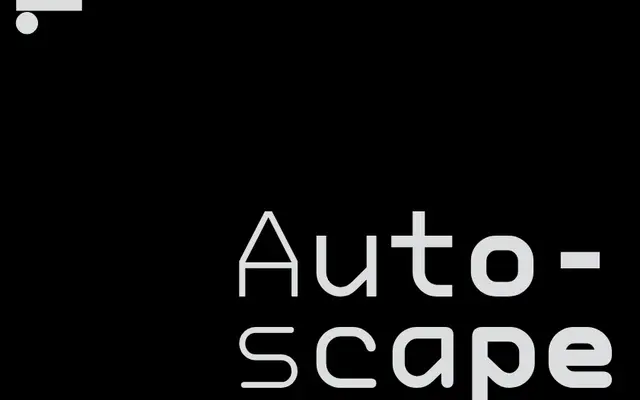
LL Autoscape
Lineto · Minjong Kim, Cornel Windlin · 1998
A monospace grotesque tracing its lineage through bitmap Monaco renderings, now redrawn from scratch by Minjong Kim with a variable weight range and a rounded variant.
Originally traced from the 9-point bitmap rendering of Susan Kare's Monaco in 1987 and first brought to print by Cornel Windlin for the 1999 Zurich exhibition Die Schweizer Autobahn, the design has been entirely redrawn by Kim with subtle optical corrections: a faint stroke contrast, squarish dots and improved letterforms that the original mechanical tracing had compromised. A variable weight axis running from Light to Bold, applied independently to both the standard and rounded versions, makes it viable for body text at small sizes as well as display work. The rounded variant retains the same strict monospace skeleton whilst substantially softening the cold mechanical register.
A strictly monospaced, near-monolinear design tracing its lineage to bitmap renderings of Susan Kare's Monaco; its mechanical construction and equal character widths place it firmly in the monospace grotesque tradition.
LL Autoscape Rounded